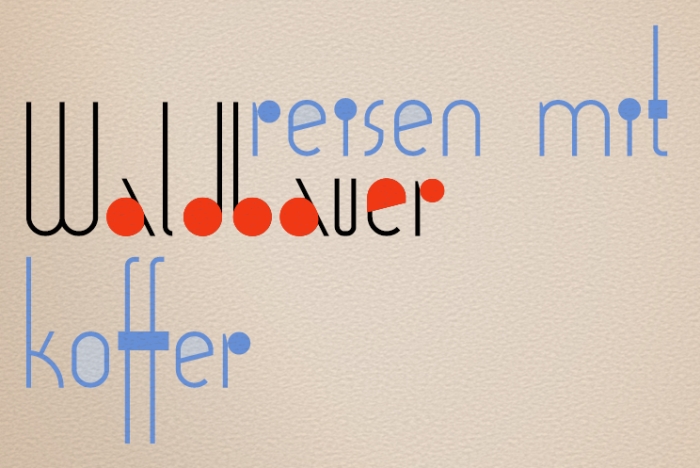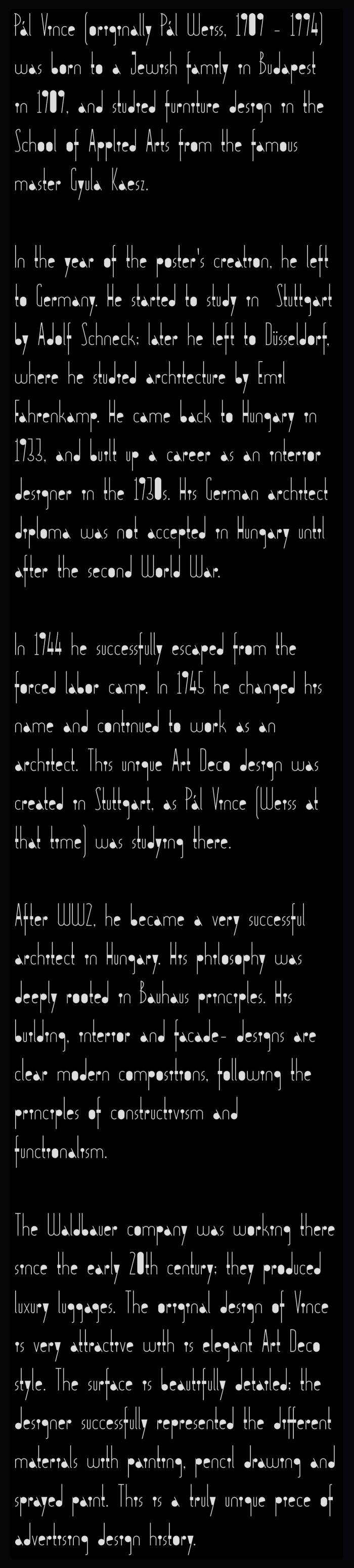
STF_WALDBAUER — Condensed modernist Bauhaus sans
This is rather a heavily condensed sans that sits halfway between a Bauhaus and Art-Deco style lettering.
The low waist, tall x-height, long ascenders and deep descenders give this font a somewhat elegant appeal. The uppercase set is clearly Art-Deco inspired, whereas the lowercase set leans more towards a playful Bauhaus mondernist style. Several characters have filled enclosed parts or other exaggerated features as well as non-filled alternate forms.
The idea for this font was inspired and extracted from a 1930s poster ad by Pál Vince for luxury luggage company Waldbauer.
The FontStruction's x-height is 3,5×1 grid units, so its tiny!